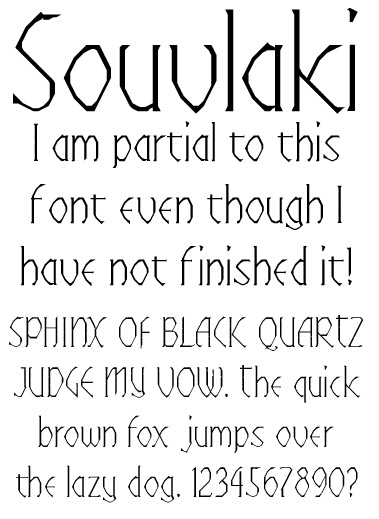
• Trying (sort of) irregular forms. Interesting to see how the screen representation misbehaves at various magnifications. Pity the printed thing won't do the same.
I like how leggy this is; it reminds me of Jack Skellington from "The Nightmare Before Christmas."
yeah . it has something...
not bad at all :)
Thank you. It was fun to do.
This one is really nicely put together and is a joy to use! Cheers!
Thank you sahwar. I'm encouraged to go back and finish it off properly. I'm guilty of not really finishing fonts before I release them so it's good to know it behaves itself.
I really must get back and finish this font. It's not very practical but I like it just the same.
Oops, forgot some of the kerns. It's a bit of a finicky bastard.
POLI OREA!
You're making me hungry for some souvla over here. Very stylish.
I thought it was about time I went back into some ancient history and had a go at fixing the kern horrors of previous fonts. This one requires a lot of air because it's so wayward. Spacing not done with yet,obviously.
@Intaglio: Regularly, as a sane activity, i look back to your inspirational catalogue. Rediscovering this gem shows me how our sensibilities are much more related than they could seem at first. This has a Magna Carta Magellanic feel, but something, sort of magical added makes it unique, far from from the real old geographic parcheminos. Impressive. Same could be said for the old german mute expressionist movies packards and your Calligari font.(By the way, we had recently in the cinema i'm working as projectionist, a mute movies festival and we passed The Cabinet of the Doctor Calligari, i of course had a thought for you...)
Concerning souvlaki, Was the bizarrerie of missing bricks on the W wanted, or was it an unsolved accident?